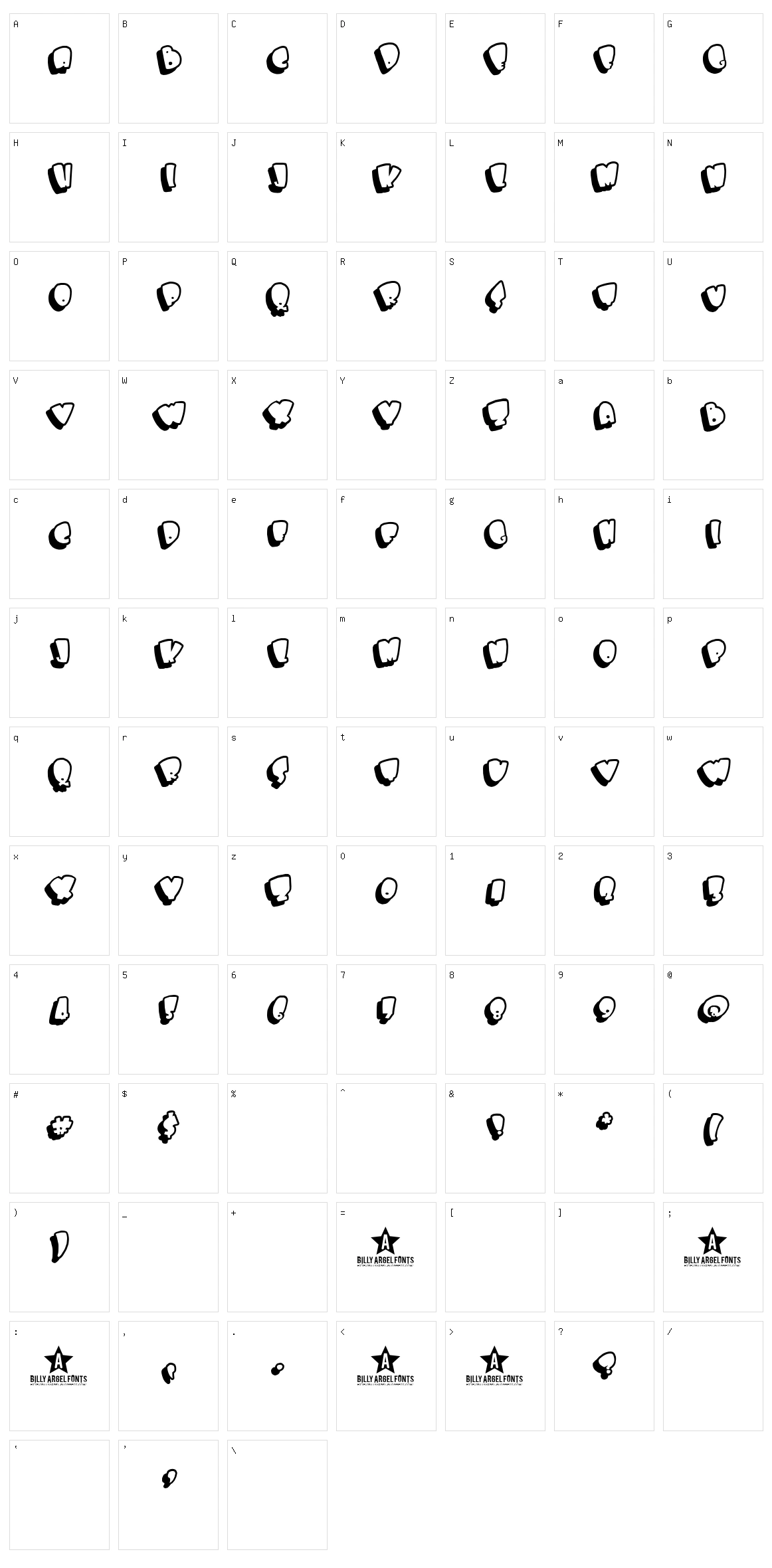
The free font Bigbobs is carefully designed by Billy Argel Fonts ®, showcasing a thoughtful balance of creativity and usability and falls under the Cartoon font style. When you download the ZIP file, it contains only 31.1 KB of font files, making it lightweight and quick to download. Please review the license details below to understand permitted usage and distribution rights. If license information is not available, we recommend using this font for personal projects only or contacting the author directly for commercial usage permissions.
BIGBOBS